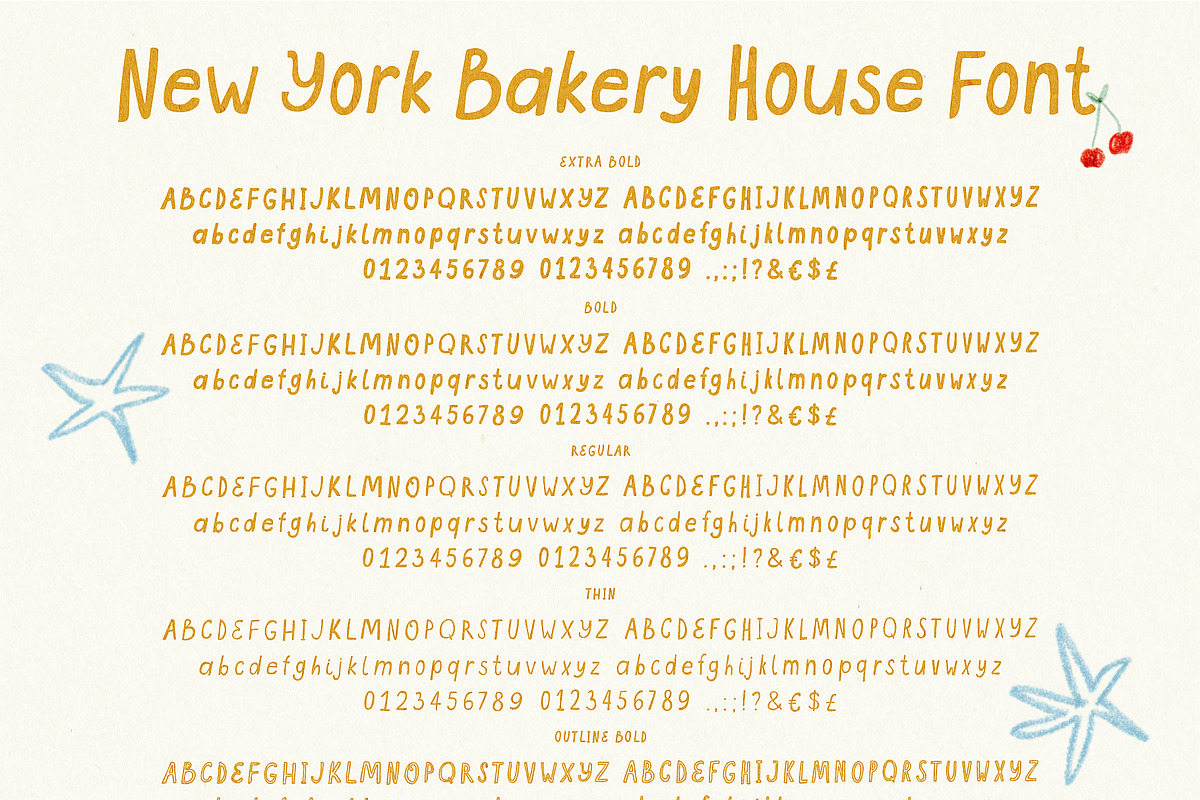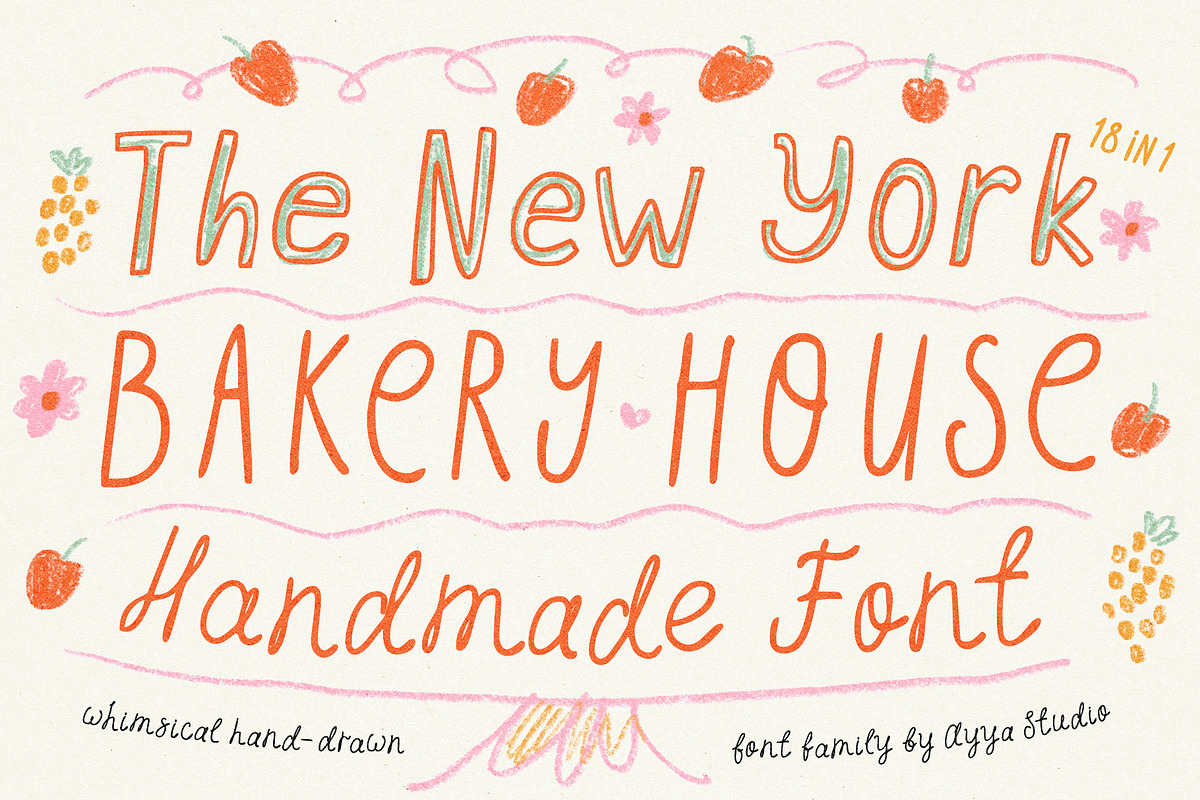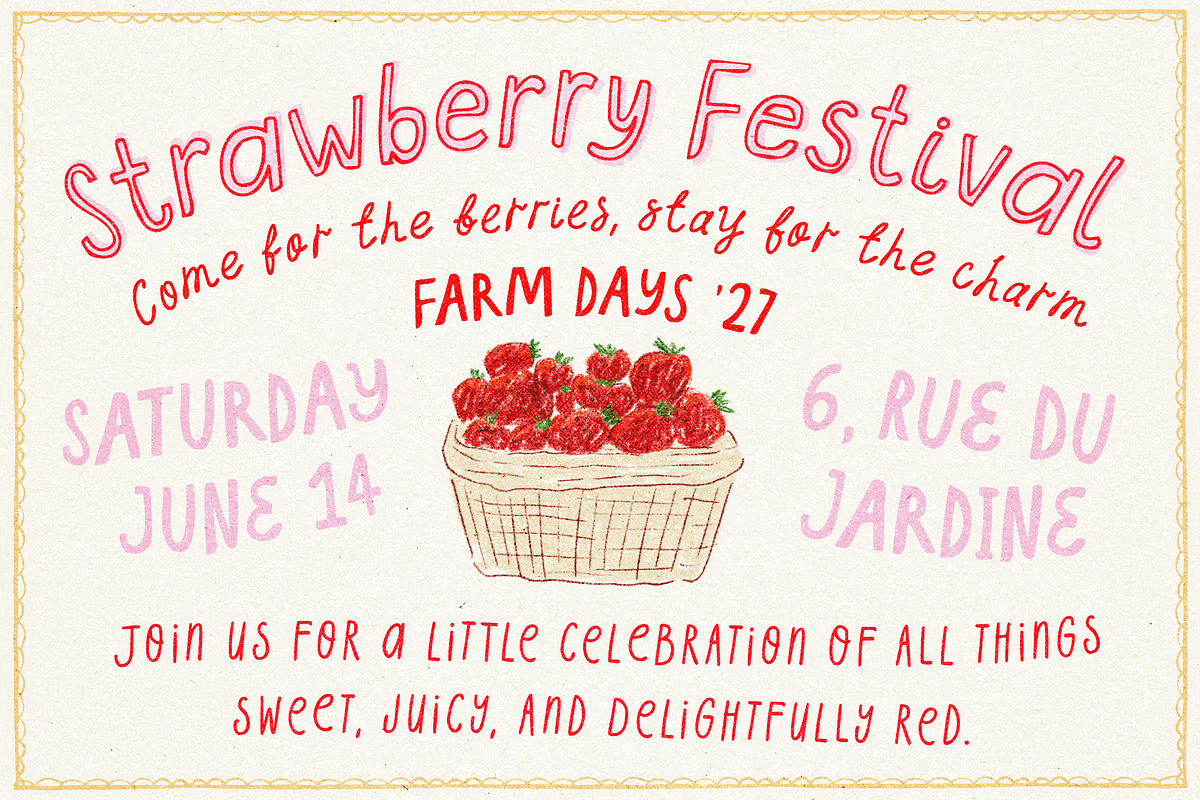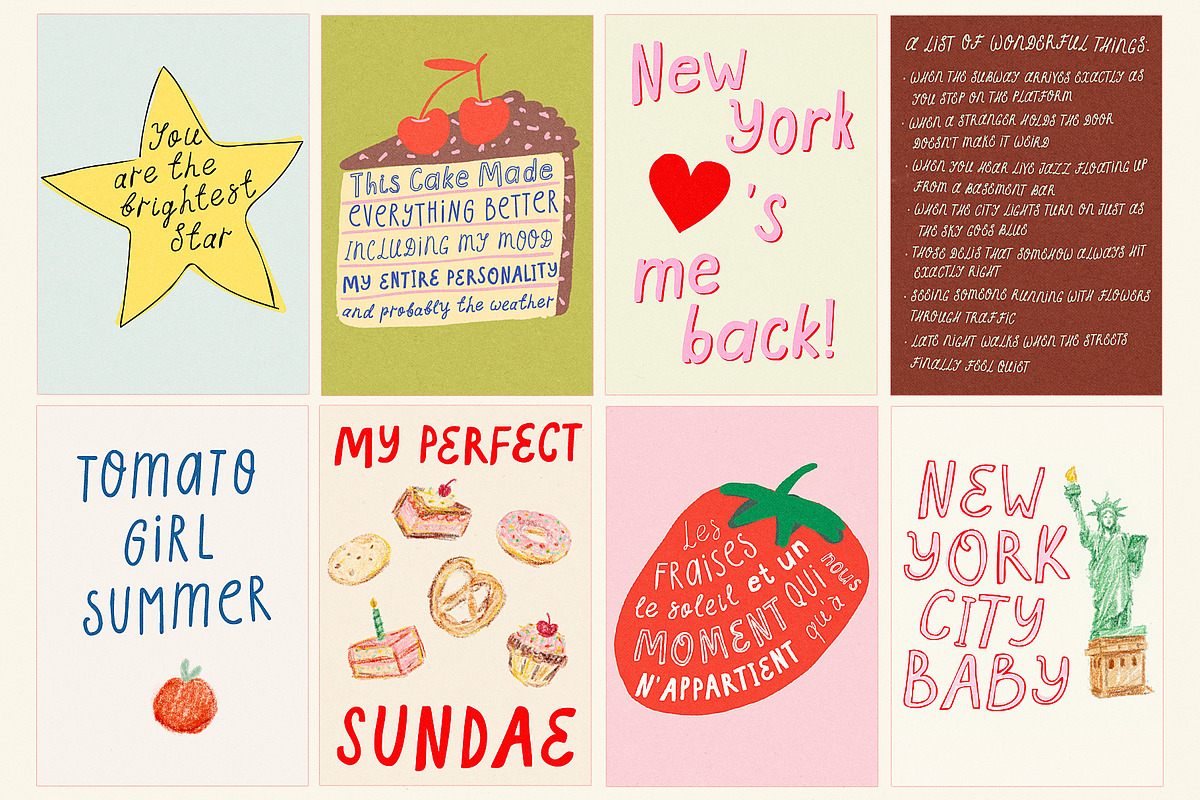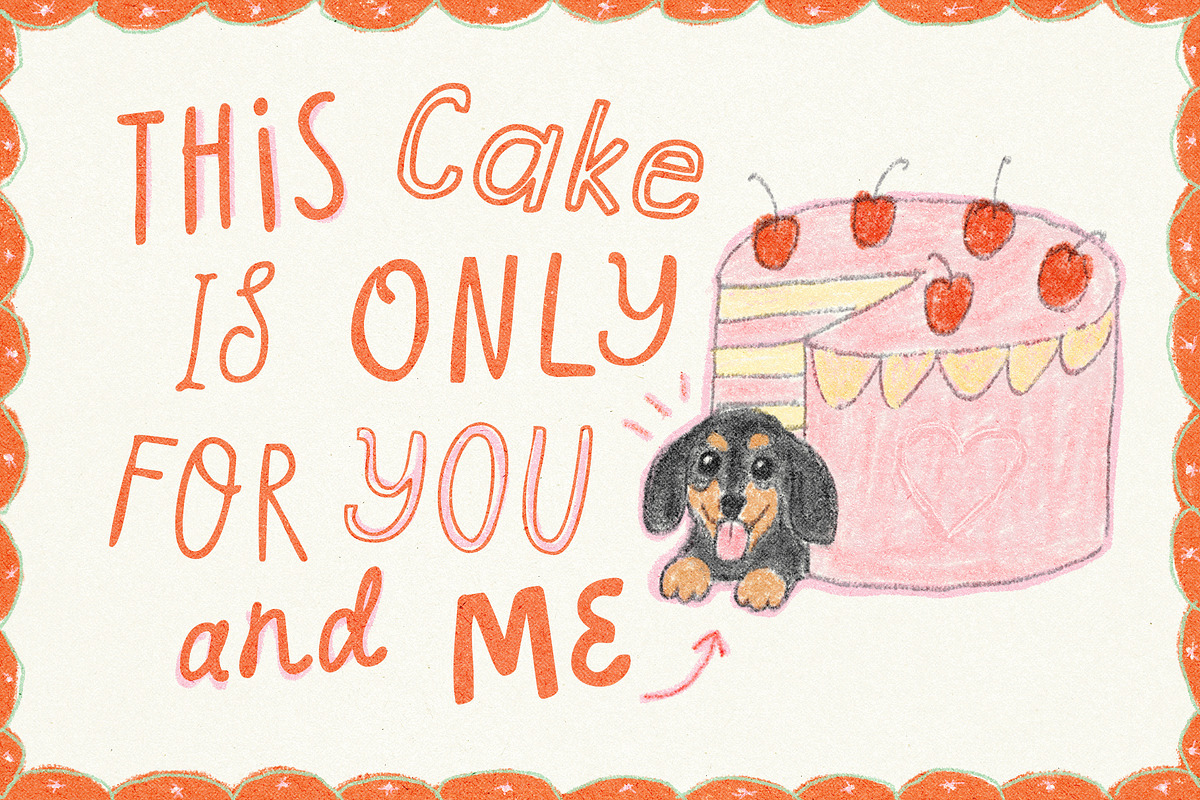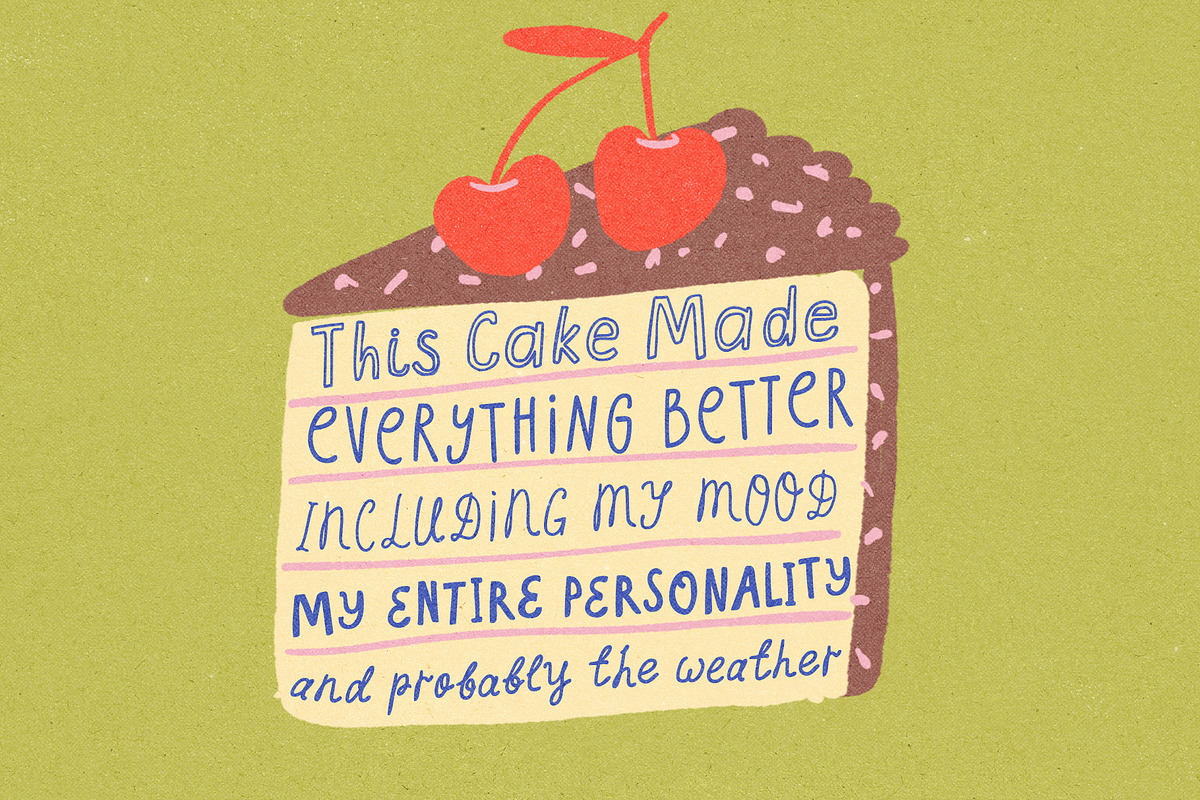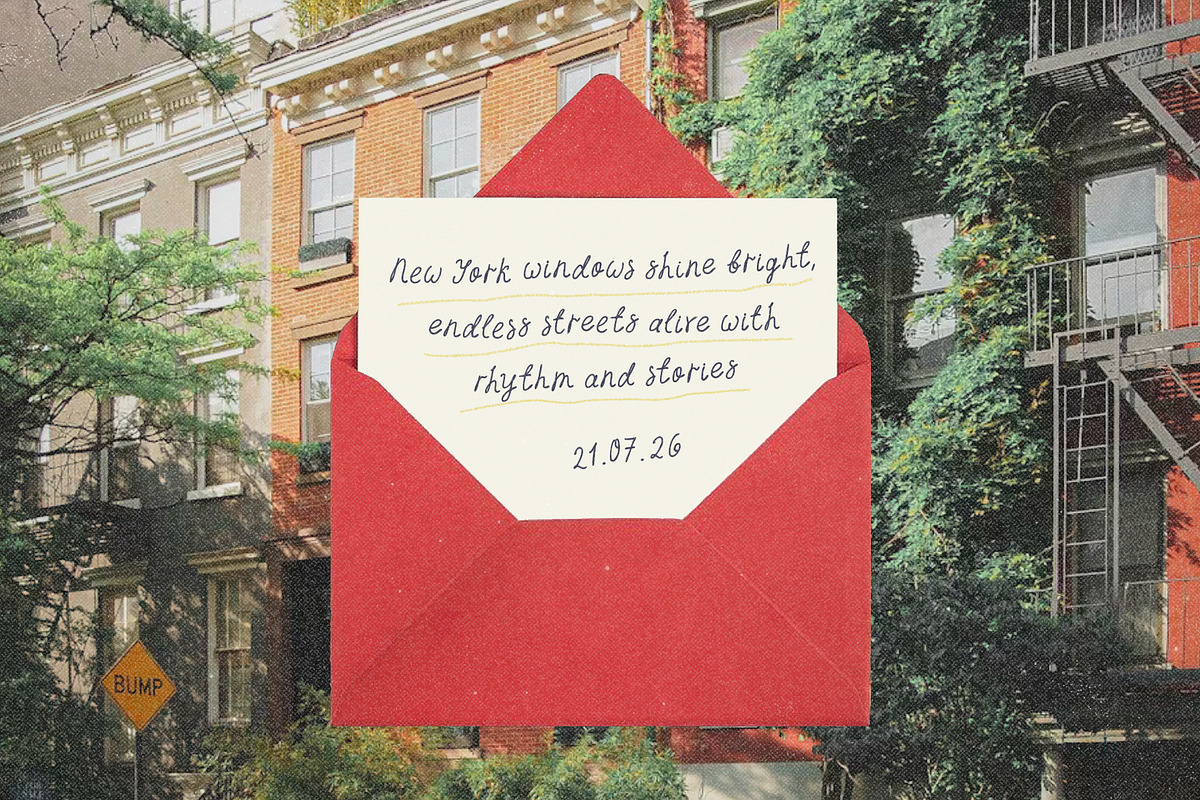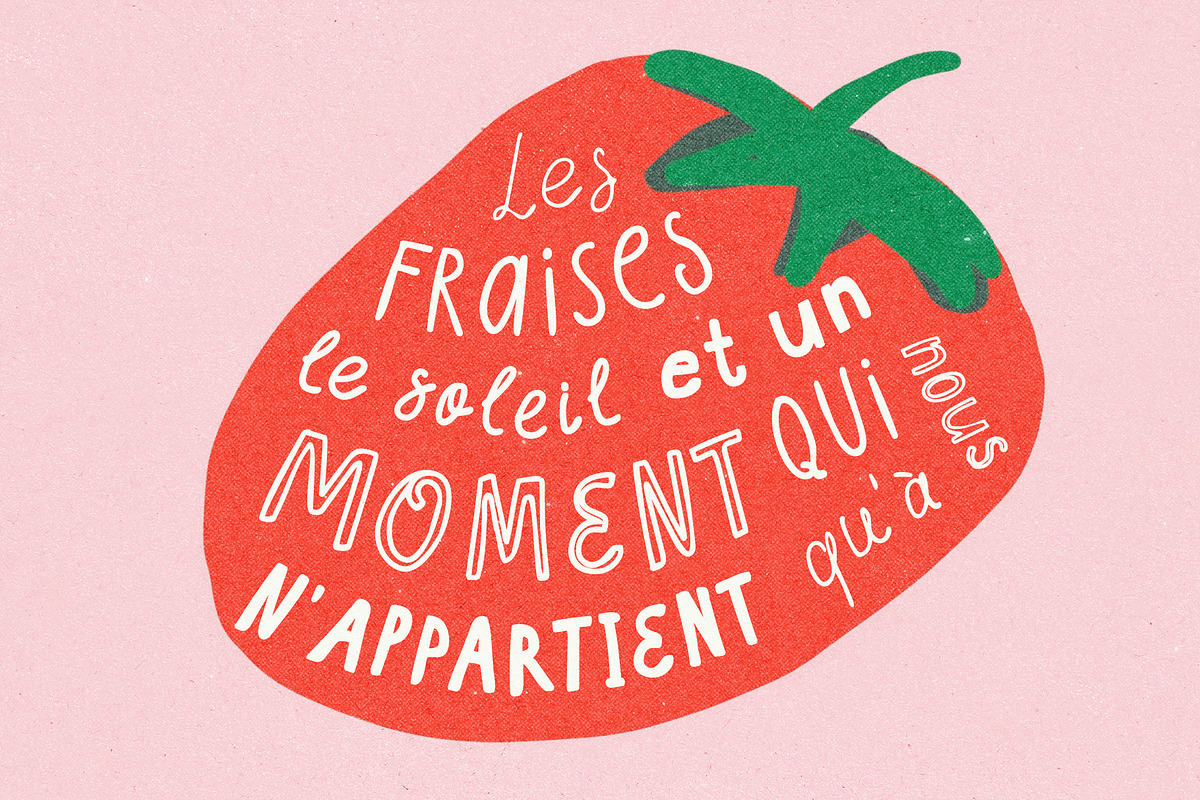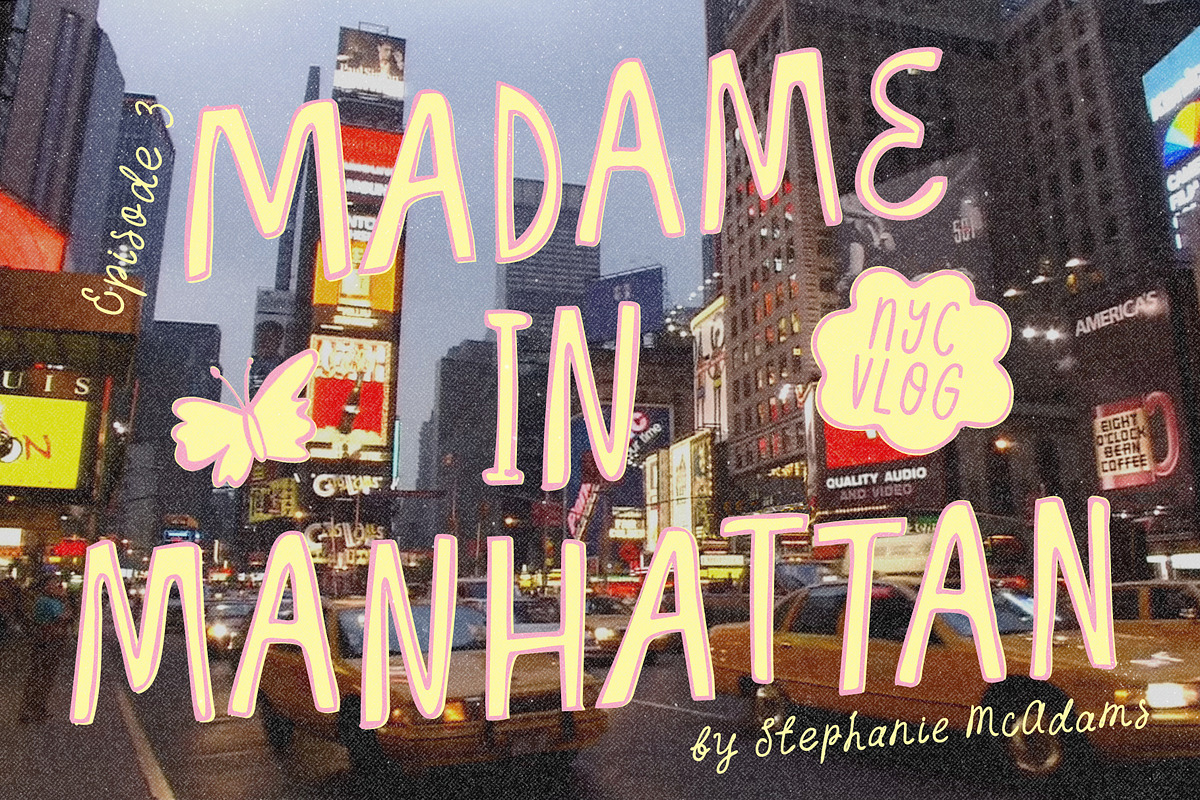
Handwritten New York Vintage Font
Welcome the New York Bakery House! 🗽🥐🍓
We made this font thinking about small New York bakeries — the kind with handwritten signs, a bit messy, a bit cute, nothing too polished.
Everything is drawn by hand, so the letters aren’t perfect on purpose. They move a little, the lines aren’t the same, and that’s what gives it that soft, real feeling.
There are 18 fonts in the family, and they’re meant to be mixed together. Some are more simple, some more playful, a few feel like quick handwriting, super easy to combine them without overthinking.
New York Bakery House works well for branding, packaging, wedding stationery, posters, invites, menus, labels, YouTube covers or blog visuals, books, illustrations — anything where you don’t want something too clean or generic.
If you like things a bit imperfect and more human, you’ll probably enjoy using it.